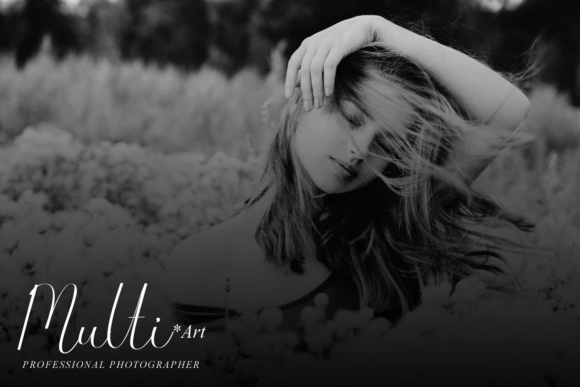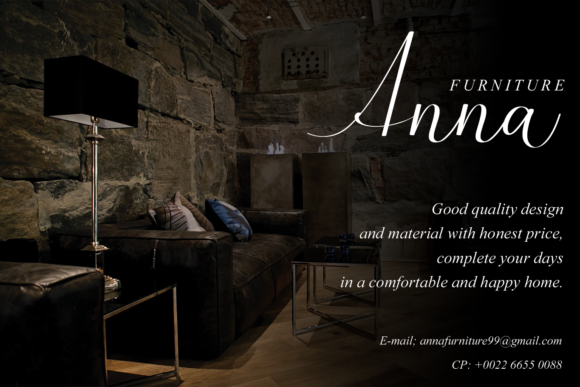
Summer Vacation Font
db-ku.com - Script & Handwritten -- Summer Vacation is an exquisite handwritten font, masterfully designed to become a true favorite. It maintains its classy calligraphic influences while feeling contemporary and fresh.